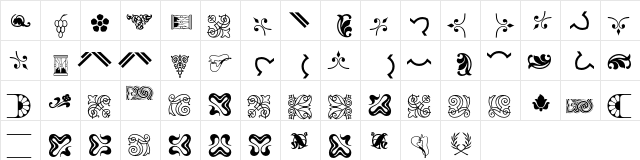
Borders Ornaments P03 Regular Font Preview
Borders Ornaments P03 Regular
Design Context for Borders Ornaments P03 Typeface
Borders Ornaments P03 brings ornamental detail and strong personality to headlines and identities, where visual impact matters more than quiet functionality.
Font Pairing: Pair with a clean neutral sans-serif for body copy to let Borders Ornaments P03's character lead without overwhelming the composition.
Pro Tip: Use Borders Ornaments P03 exclusively at display sizes — it was designed to be seen, not read at length. Let a neutral companion handle body copy.